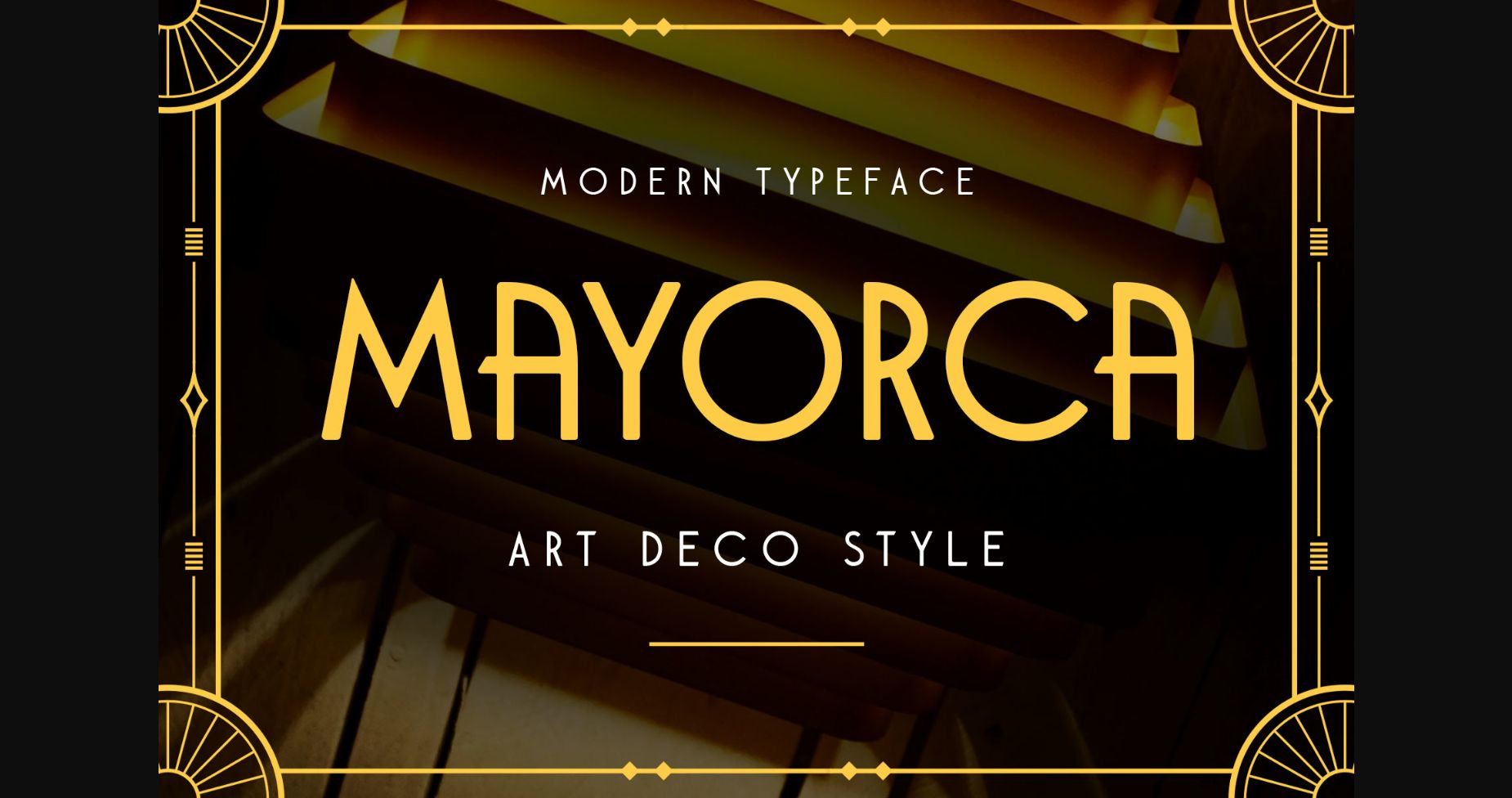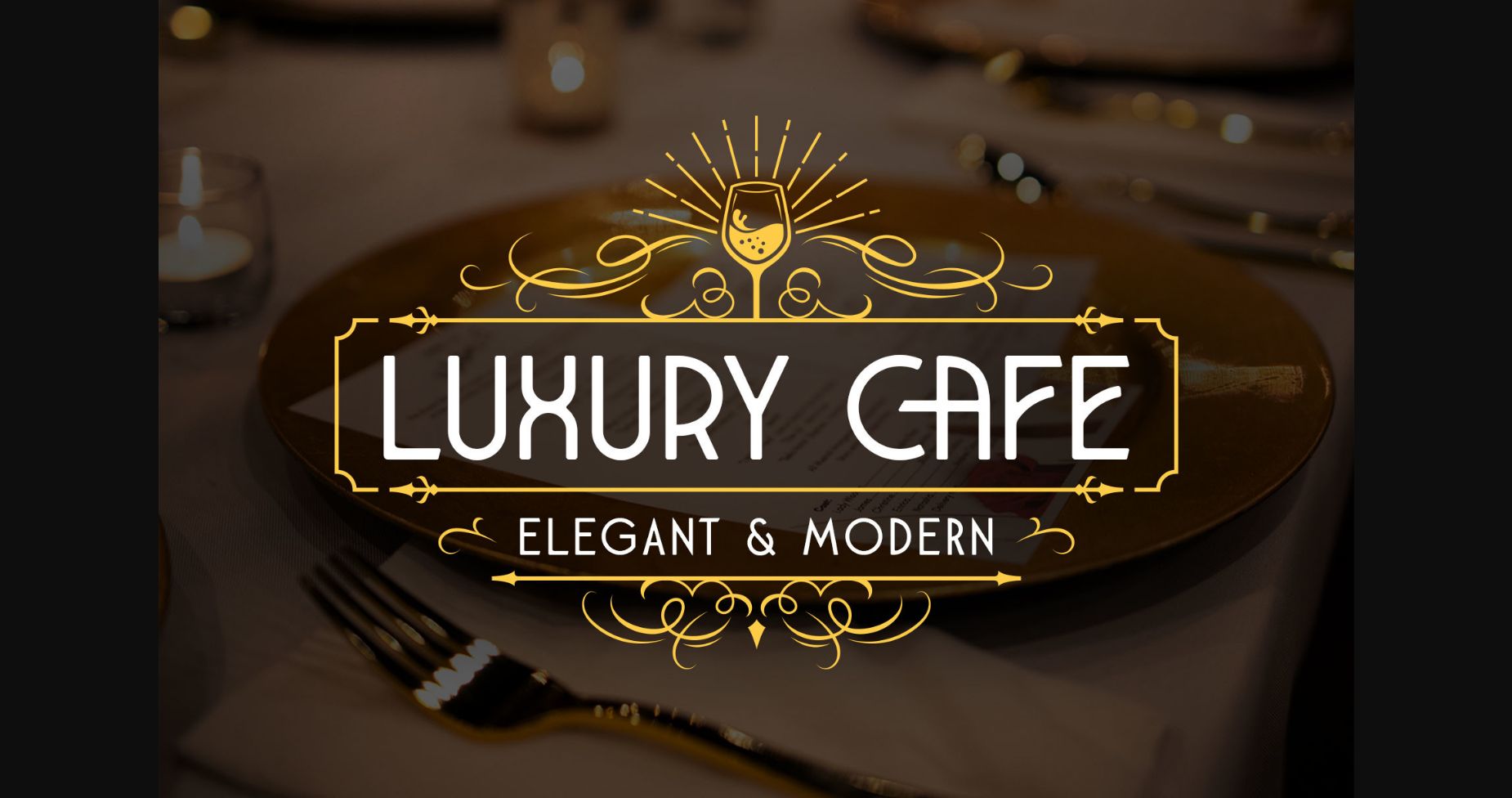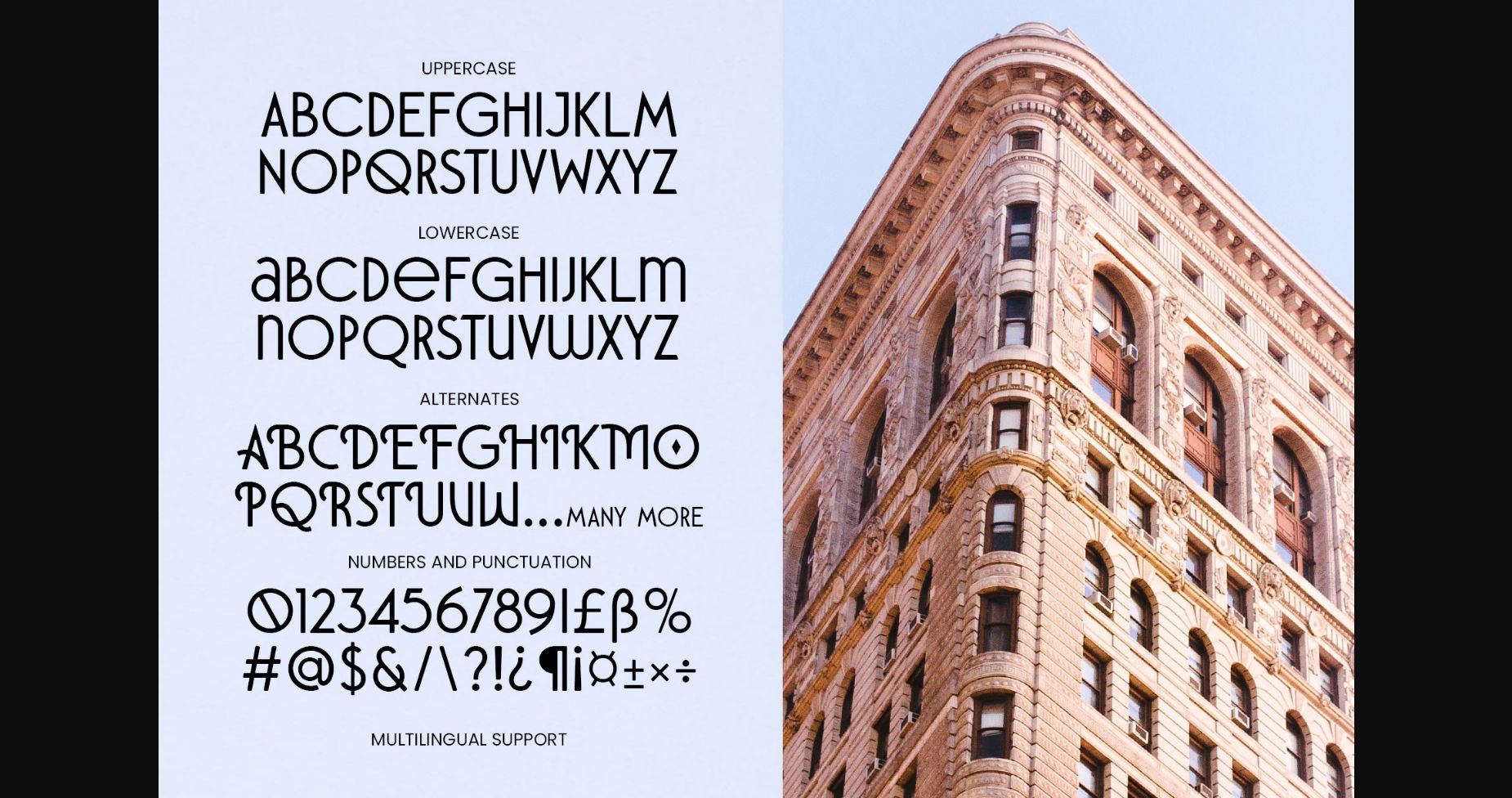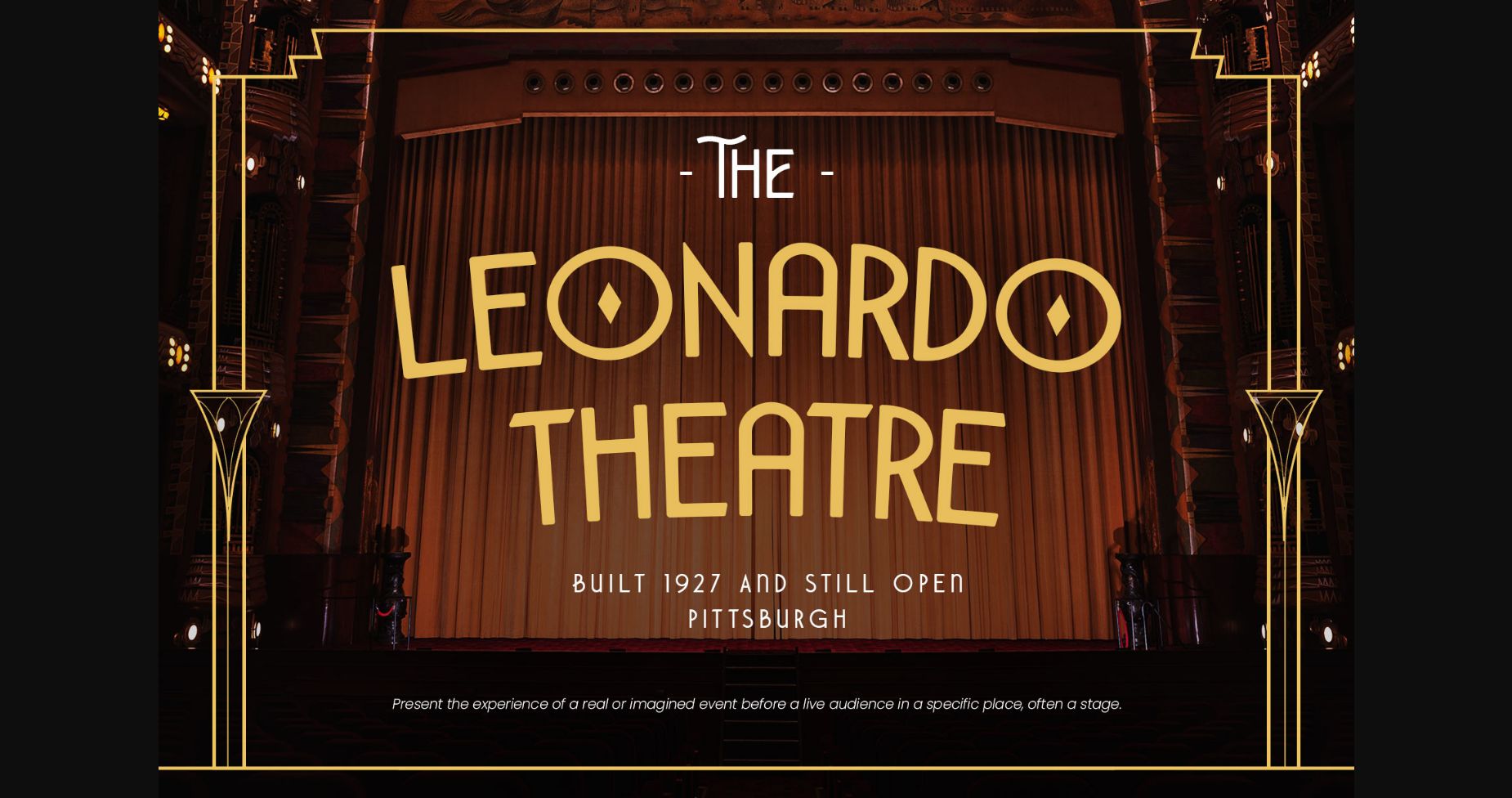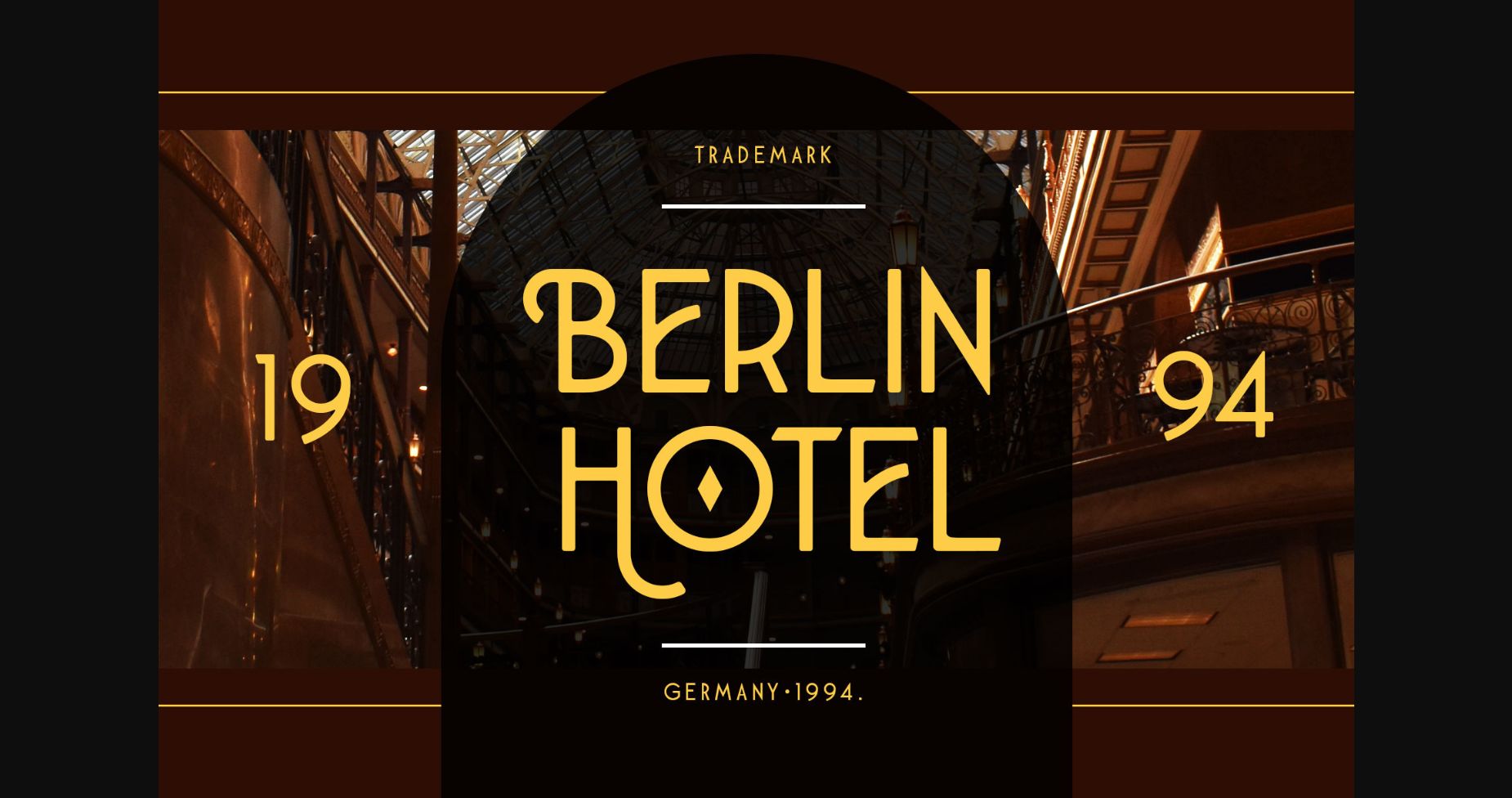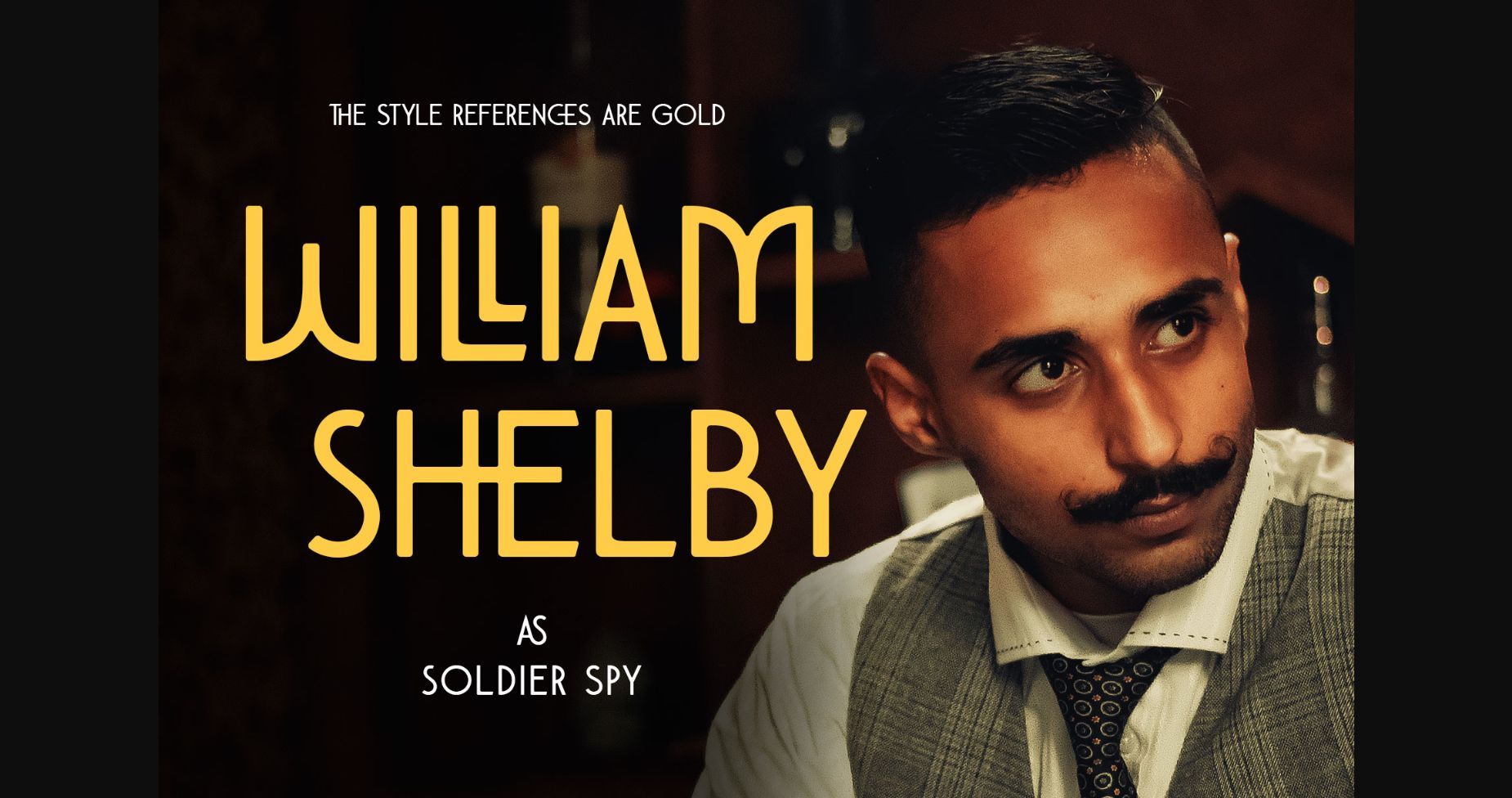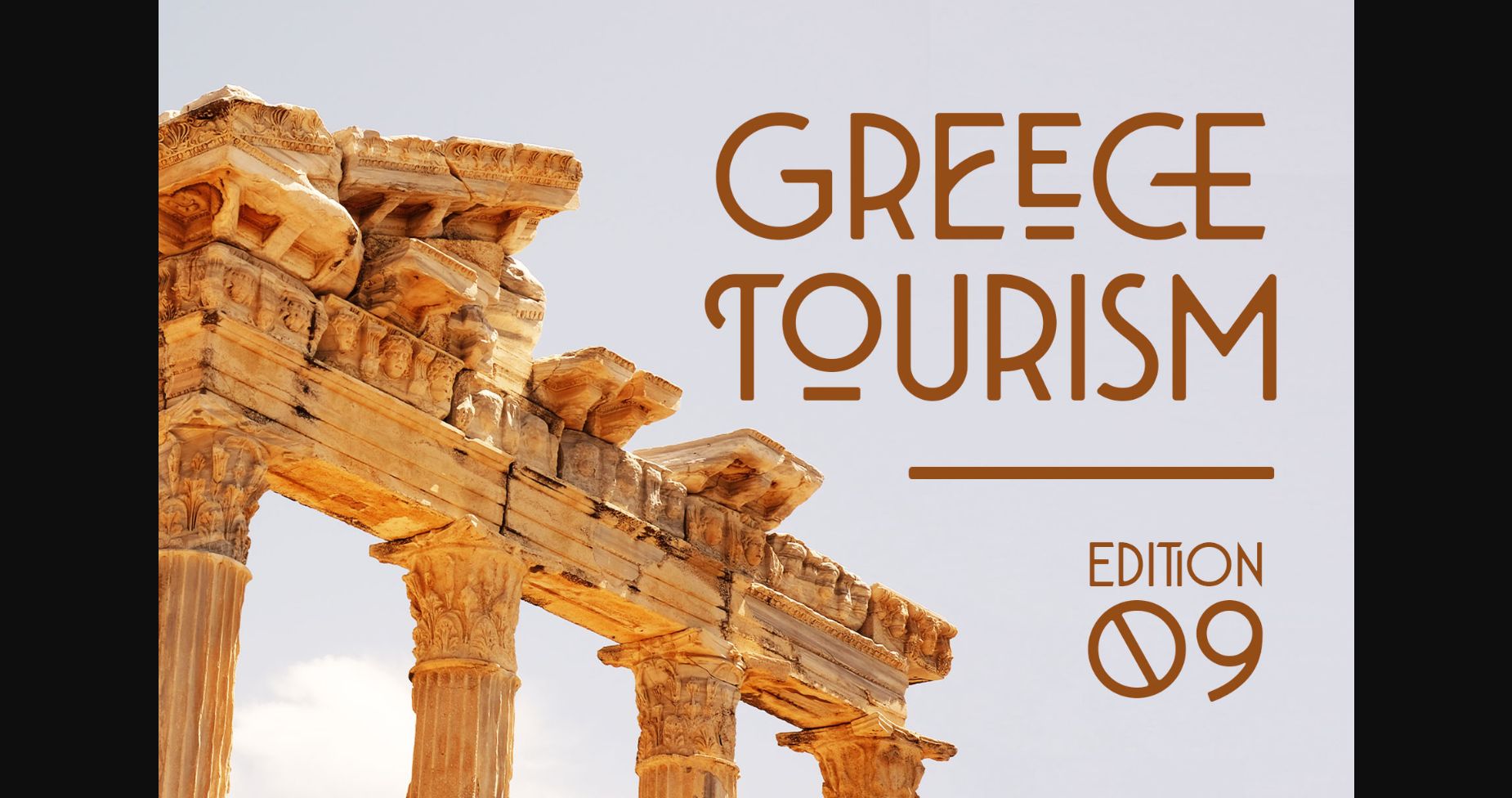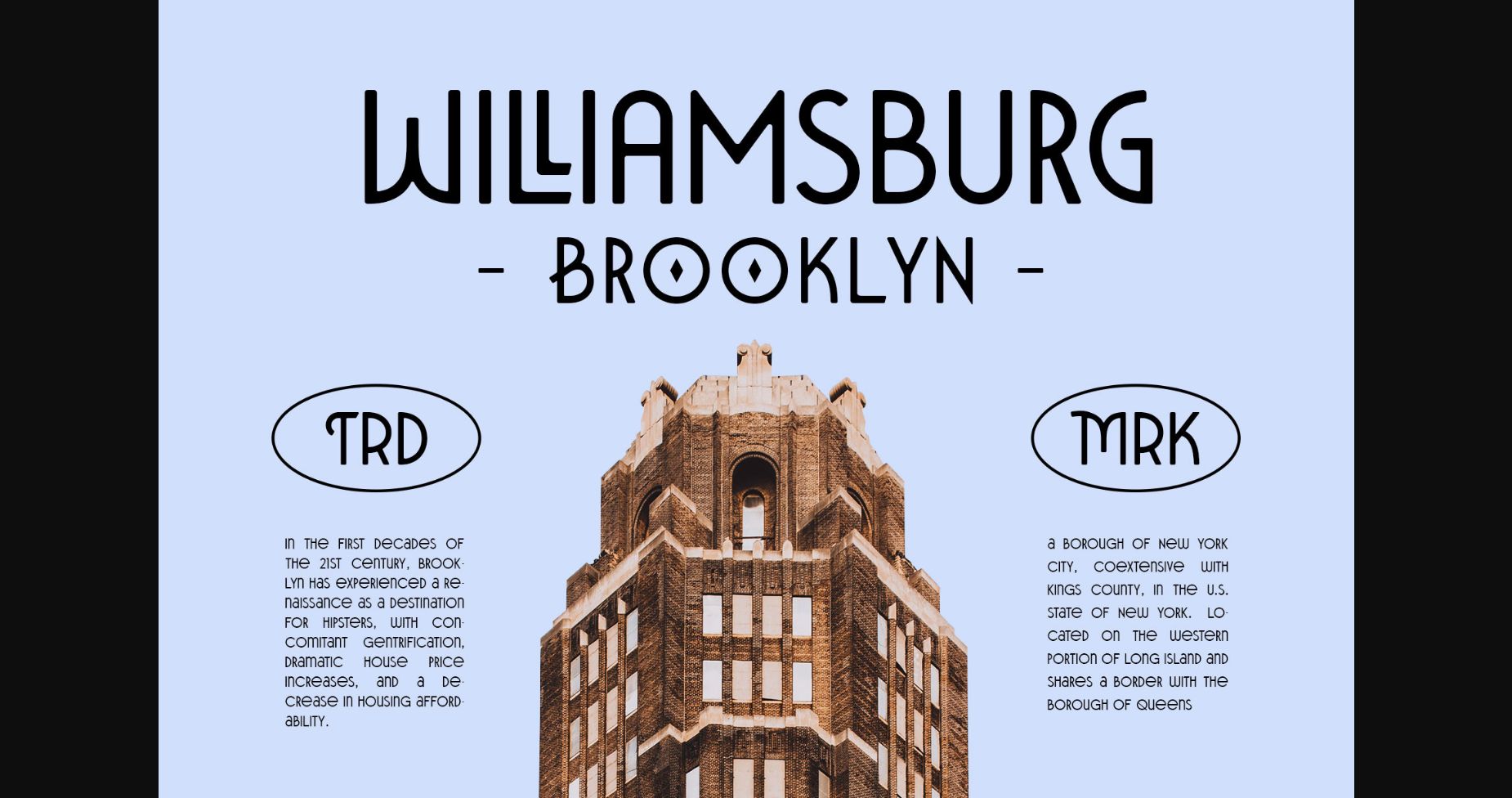
About Mayorca Font
Introducing Mayorca, the legacy of stylish art deco design which was famous in the 1920s. Mayorca is designed with strong strokes, geometric shapes, and soft edges and corners that give elegant looks and represented wealth, classy, and glory.
This font has all uppercase letters, created especially for display, headline, poster, logo, branding, and many more! Complete with alternate characters and multilingual support.